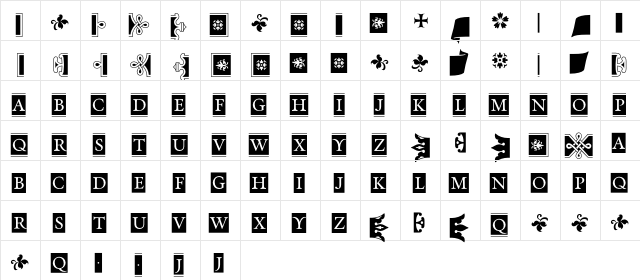
RequiemOrnaments HTF-Text
Design Context for RequiemOrnaments Typeface
RequiemOrnaments brings ornamental detail and strong personality to headlines and identities, where visual impact matters more than quiet functionality.
Font Pairing: Pair with a clean neutral sans-serif for body copy to let RequiemOrnaments's character lead without overwhelming the composition.
Pro Tip: Treat RequiemOrnaments as the centrepiece of your typographic hierarchy. One strong heading set in a decorative face can carry an entire layout.